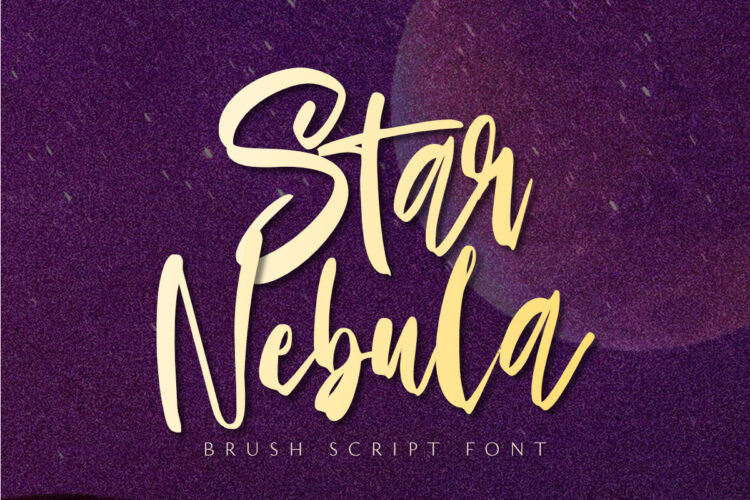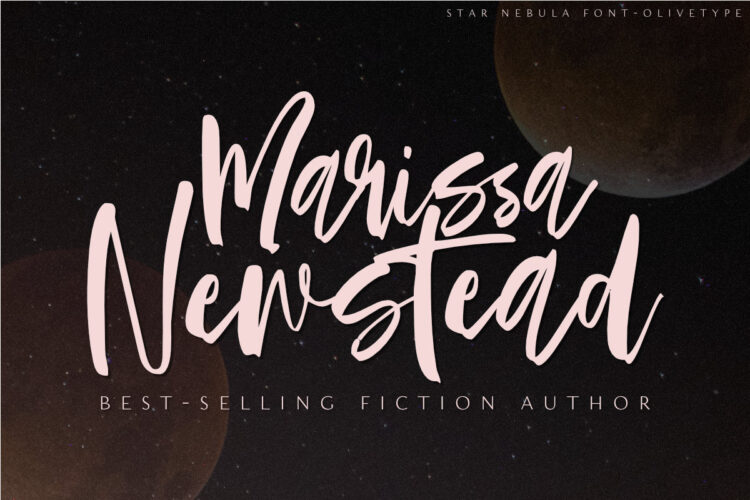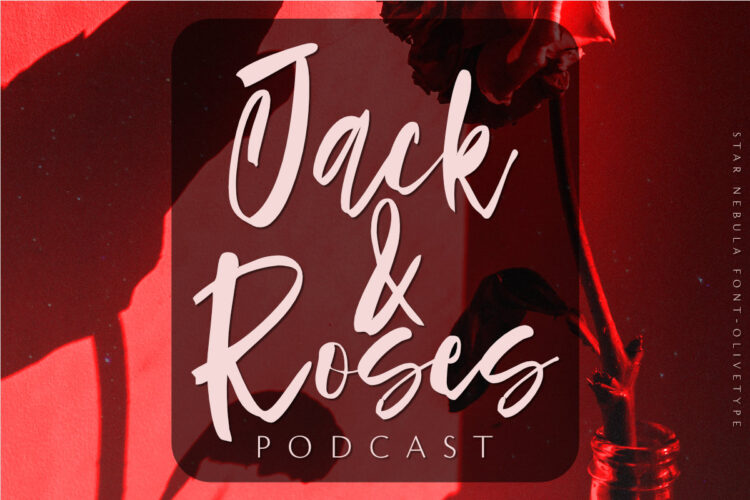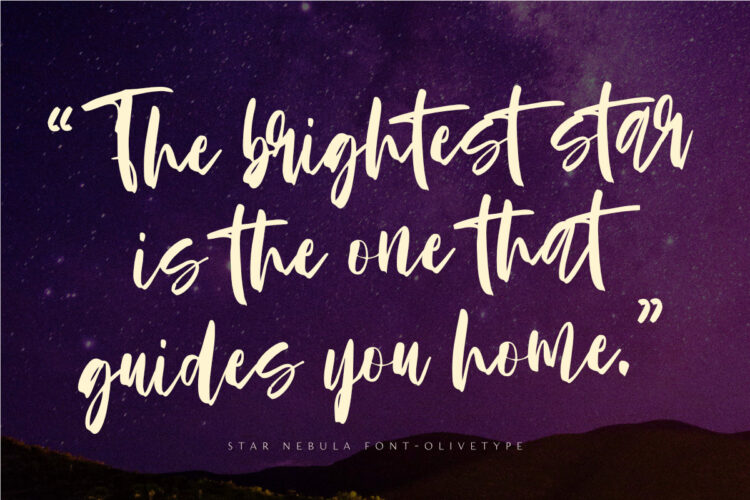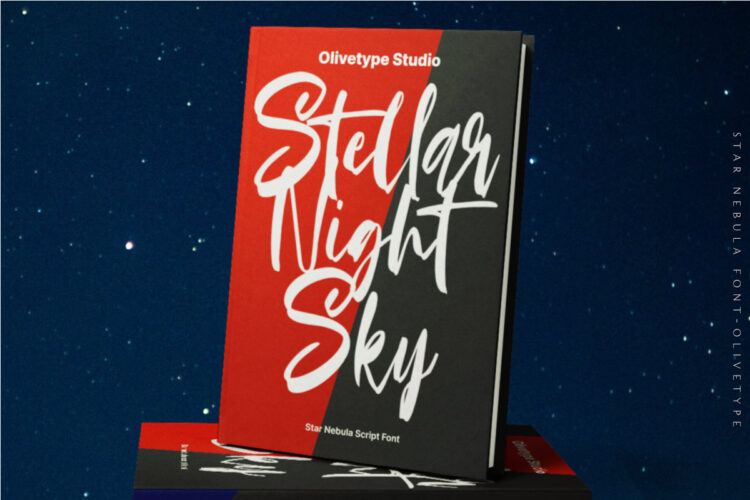
Take a walk in outer space and discover a new amazing experience with Star Nebula. With its unique brush script style and cool texture, you can use this vector brush font to create eye-catching logos, headlines, etc.